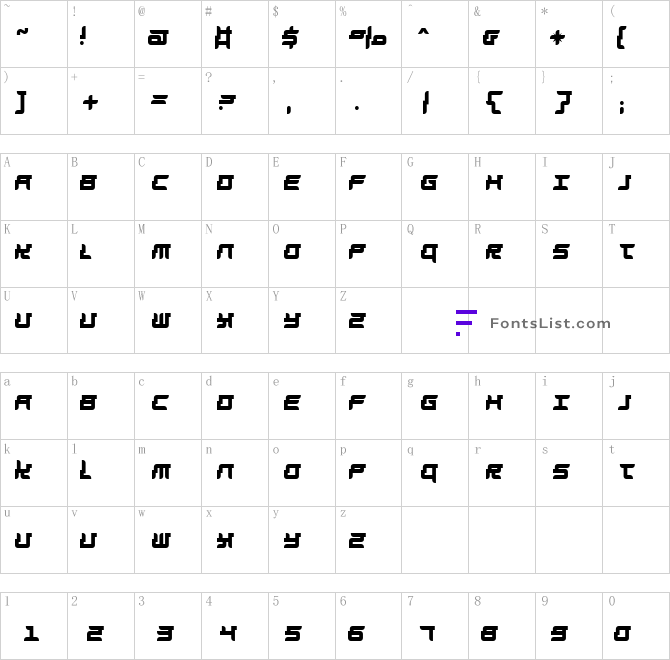
- Font Name:Barbarella
Barbarella.ttf is a very beautiful artistic font, Barbarella.ttf is widely used in the design and printing of various books and pictures,Barbarella.ttf has a strong visual impact,Barbarella.ttf is a commonly used font in newspapers, magazines and books, and is used in posters, e-commerce Poster design, store design, logo design, font design and other fields.Barbarella.